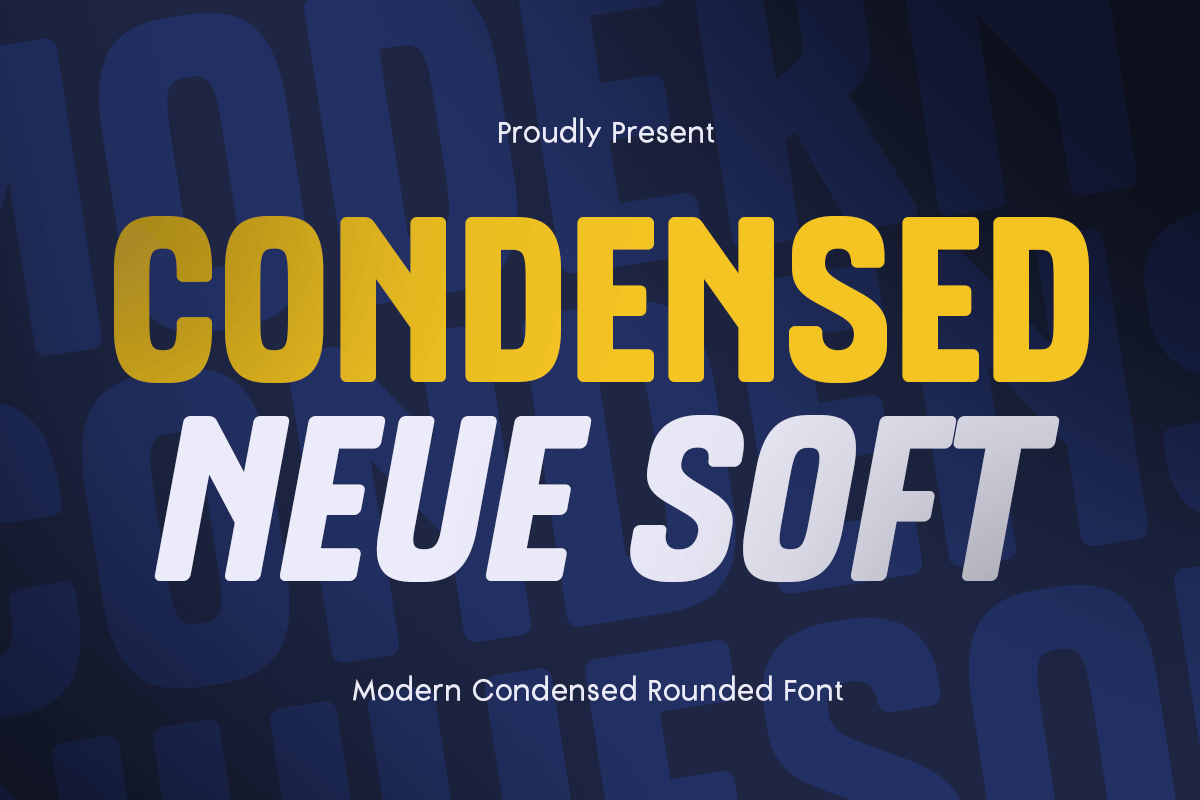
Condensed Neue Soft
-Modern Condensed Font
Condensed Neue Soft - Modern Condensed Font
Condensed Neue Soft font is a modern condensed font with smooth curves and a bold, minimalist design. Its soft edges and refined letterforms create a perfect balance between bold and readability, making it ideal for branding, editorial layouts, product packaging, tech startups, and modern advertising.
With its narrow proportions and rounded details, Condensed Neue Soft font brings a friendly yet professional bold to your projects. Whether you're designing a cutting-edge website, stylish magazine headlines, or corporate branding materials, this font delivers a polished and contemporary look.
Perfect for designers who seek a modern, clean, and space-saving typeface, Condensed Neue Soft font ensures maximum impact with minimal effort.
Condensed Neue Soft Font - Modern Condensed Font Features:
• Smooth, rounded, and modern condensed letterforms
• Ready with Regular & Italic Version Style
• Perfect for branding, tech, and editorial layouts
• Punctuation, numbers, and symbols included
• Uppercase and lowercase letters
• OpenType features for added flexibility
Achieve a modern, bold, and stylish look with Condensed Neue Soft font—the perfect font for minimalist and contemporary designs.